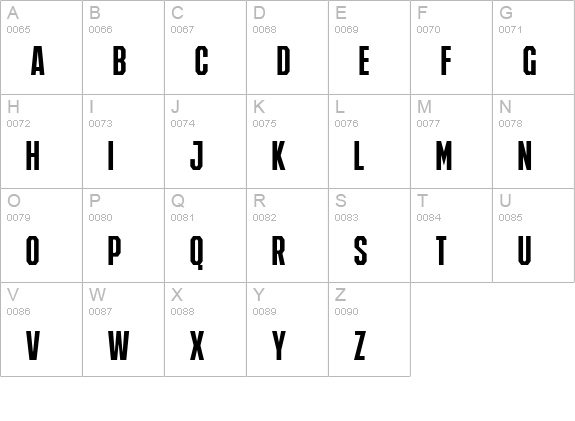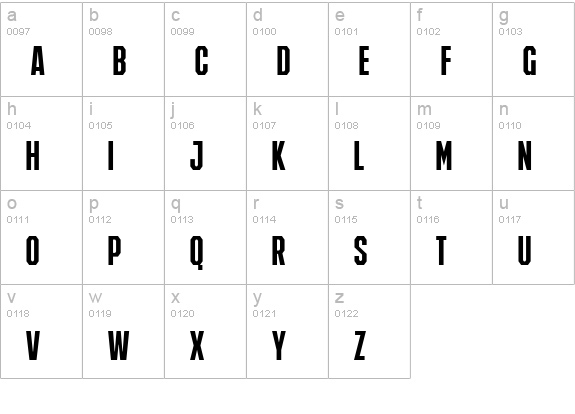
Introducing the formidable IRON MAN OF WAR 001C NCV font, a powerful typeface that exudes strength, determination, and innovation. Crafted with meticulous attention to detail, this font boasts a unique blend of sleek lines and bold, angular shapes, reminiscent of the iconic Iron Man suit. Designed to captivate and command attention, IRON MAN OF WAR 001C NCV is the perfect choice for projects that require a touch of heroism and modernity. Whether used in headlines, logos, posters, or any other creative endeavor, this font effortlessly adds a touch of sophistication and power to any design. What sets IRON MAN OF WAR 001C NCV apart is its versatility. With various weights and styles available, it offers endless possibilities for customization, allowing designers to create captivating compositions that truly stand out. From its strong uppercase letters to its dynamic lowercase characters, this font is a force to be reckoned with. The best part? IRON MAN OF WAR 001C NCV is freely available to download at FontsMarket.com. This means that you can unleash your creativity without any limitations, as this font is accessible to everyone, regardless of budget or design requirements. Whether you're a professional designer or a hobbyist, this font is here to elevate your projects and make them truly extraordinary. So, don your creative armor and embark on a design journey like no other with IRON MAN OF WAR 001C NCV. Let its commanding presence and sleek aesthetics guide your creations and bring your vision to life. Download this remarkable font today from FontsMarket.com, and unlock a world of limitless possibilities.